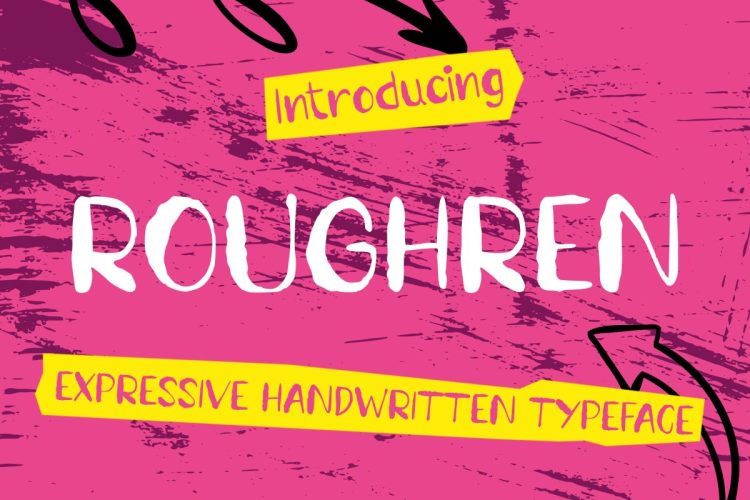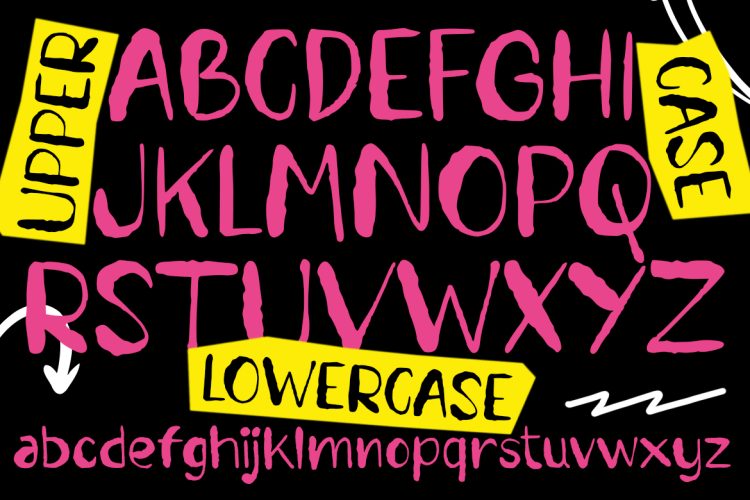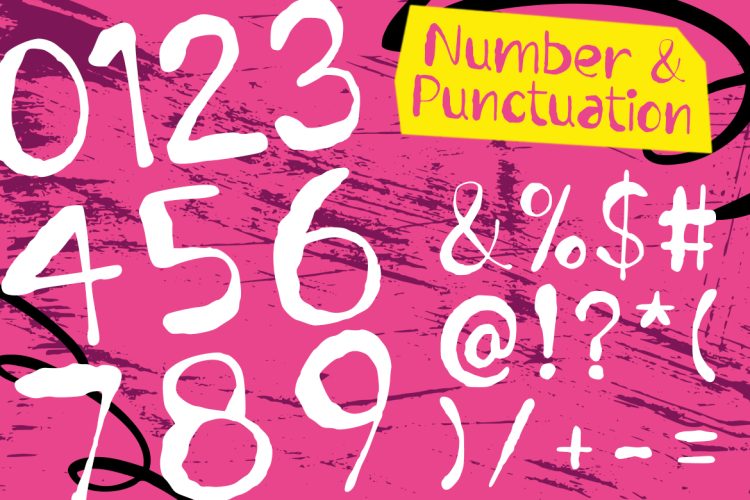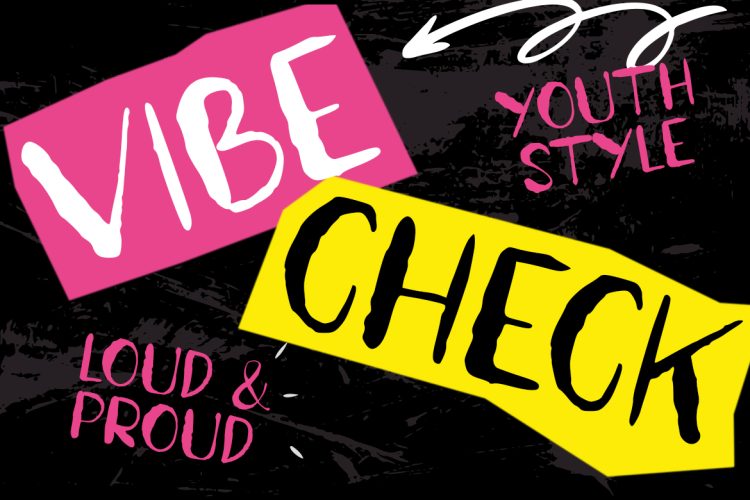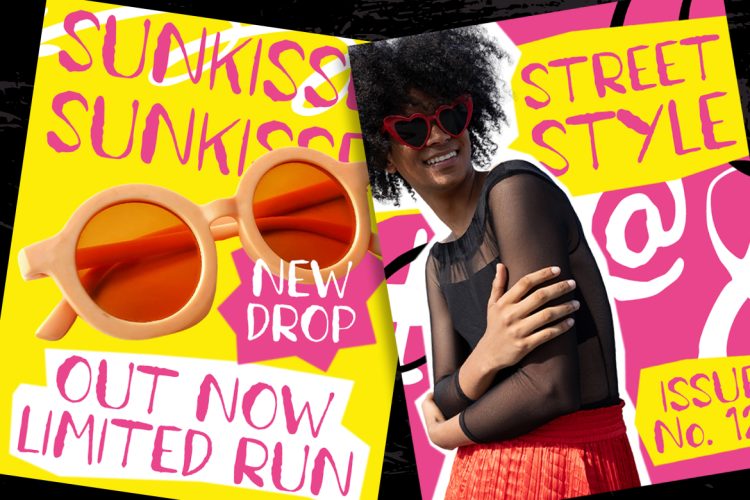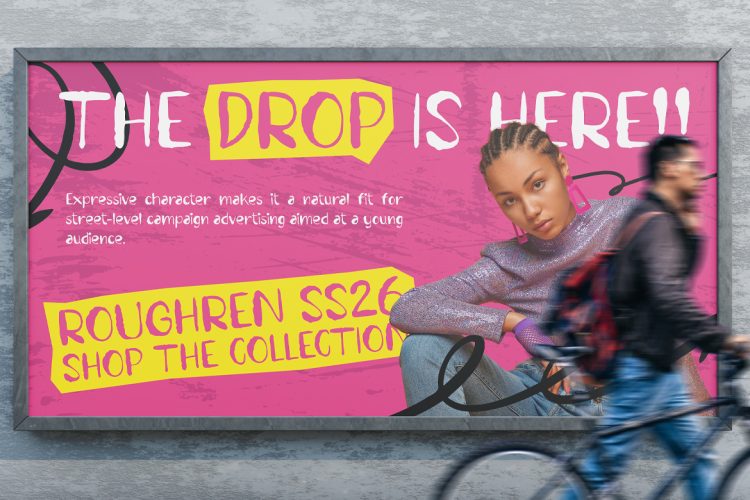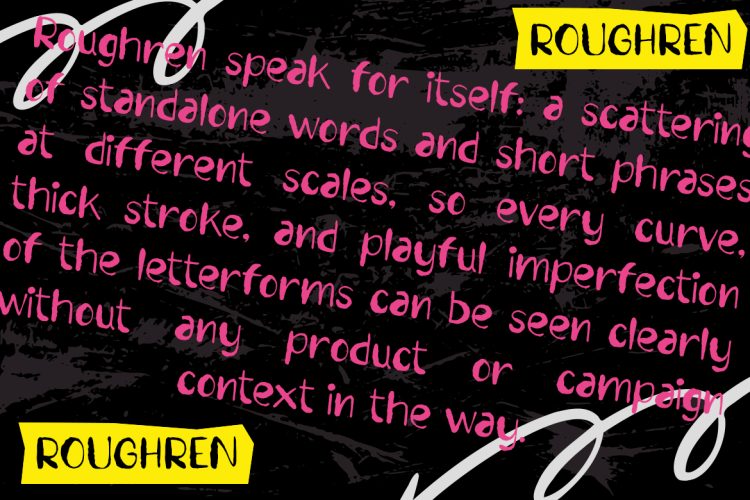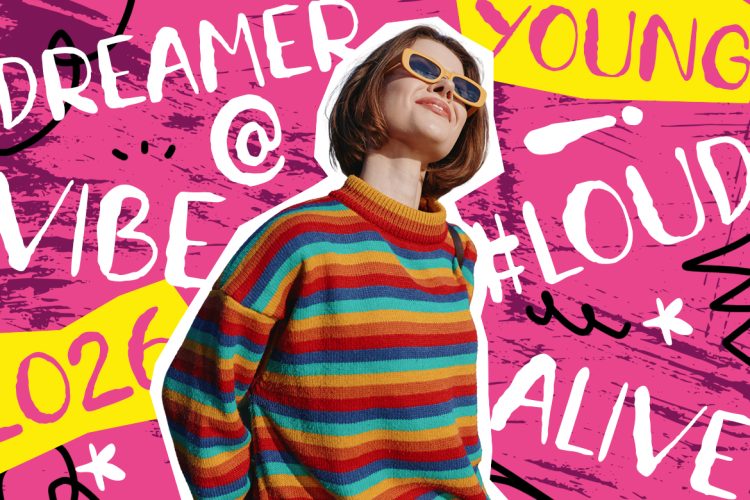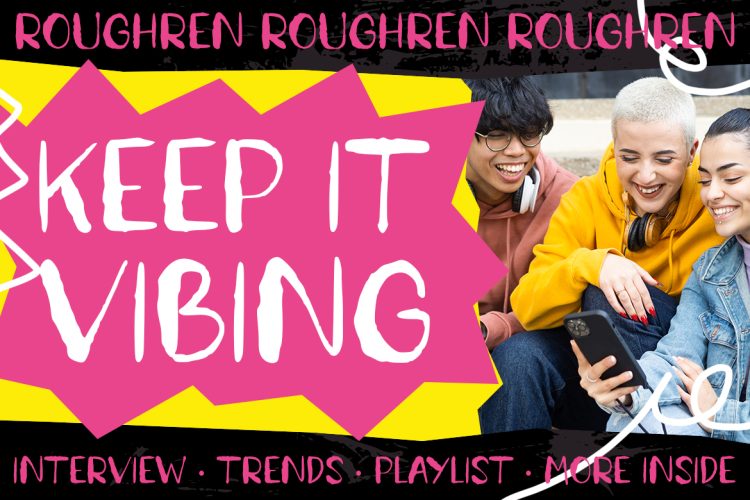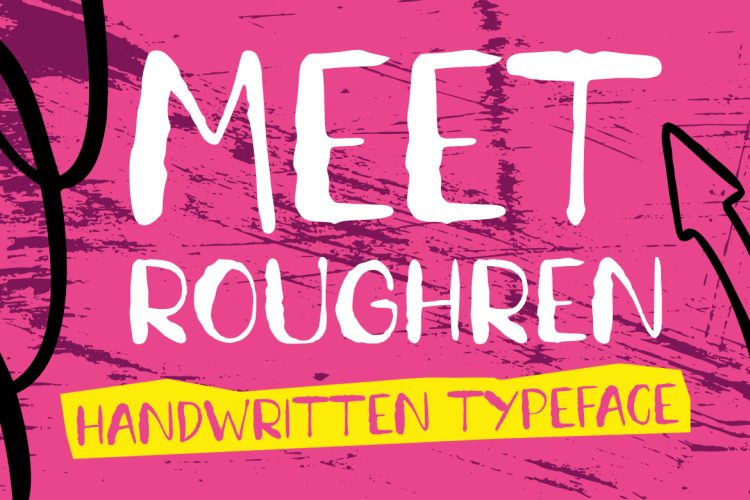
Roughren โ Raw Street Handwritten Font
Instagram Font Roughren brings a fearless handwritten vibe to modern visuals through rough strokes, irregular letterforms, and bold marker-style shapes. Unlike polished typefaces, Roughren feels spontaneous, expressive, and naturally imperfect. Moreover, its textured strokes create a raw handmade edge, while its strong forms keep every headline clear and punchy. Because of this, your typography instantly feels younger, louder, and more energetic. At the same time, its loose letter rhythm adds an authentic street-inspired character to every composition. Plus, the expressive style works beautifully with photos, textures, doodles, and bold graphic elements. Therefore, Roughren gives your message a distinctive voice without making the design feel complicated.
Made for Creators Who Want More Attitude
Instagram Font Roughren is ideal for designers who want typography with personality, movement, and a rebellious edge. Furthermore, it works beautifully for Instagram posts, street-style branding, fashion campaigns, music artwork, event posters, album covers, stickers, merchandise graphics, magazine layouts, product labels, and creative advertising. In addition, Roughren pairs naturally with photography, vibrant colors, hand-drawn elements, and textured backgrounds. As a result, your layouts feel more authentic, youthful, and effortlessly cool. Meanwhile, its bold presence helps important words grab attention quickly.
Instagram Font Roughren Perfect For
- Instagram & social media
- Street-style branding
- Fashion campaigns
- Music & event posters
- Album artwork
- Stickers & merchandise
- Youth-focused designs
- Creative advertising
Make Every Word Hit Harder
So, if ordinary typography feels too predictable, Roughren gives your designs a louder voice. Moreover, its raw handwritten character makes every headline feel personal, energetic, and memorable. Plus, the imperfect details add a human touch that polished fonts often miss. Therefore, choose Roughren today and turn simple words into bold visual statements with serious street-style attitude.